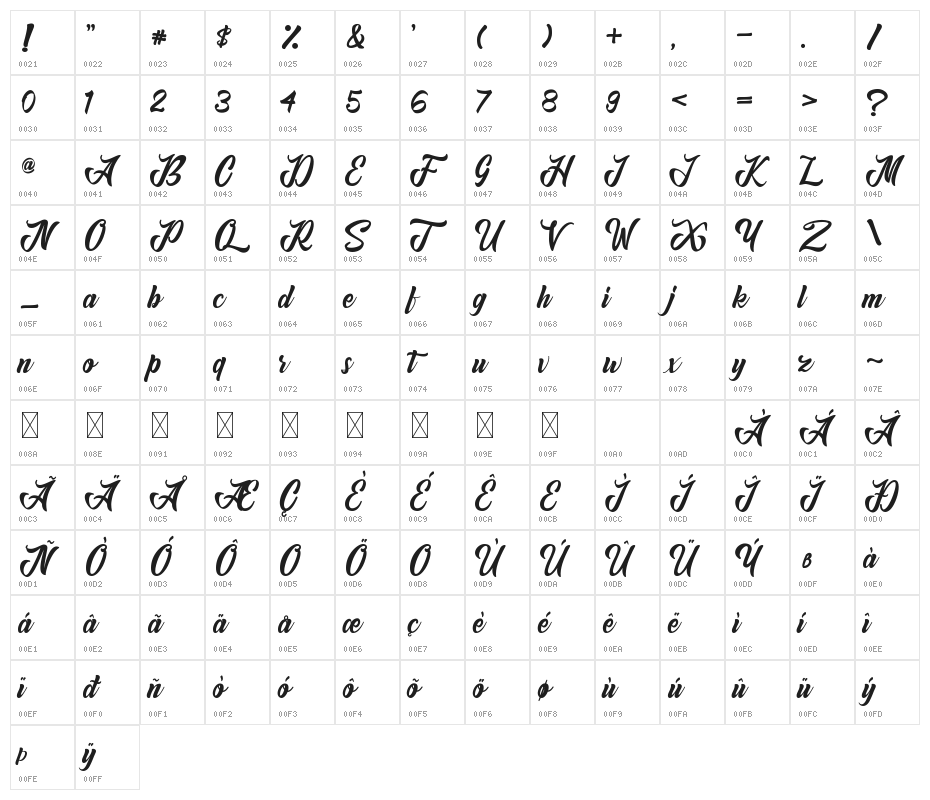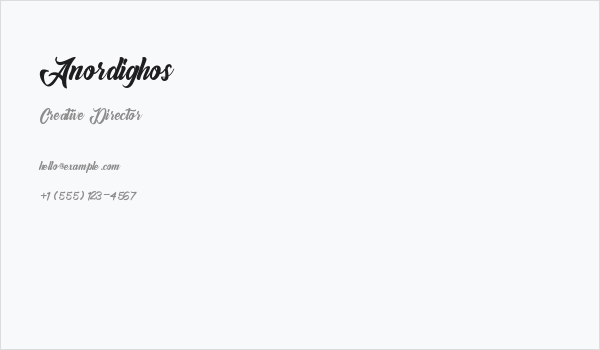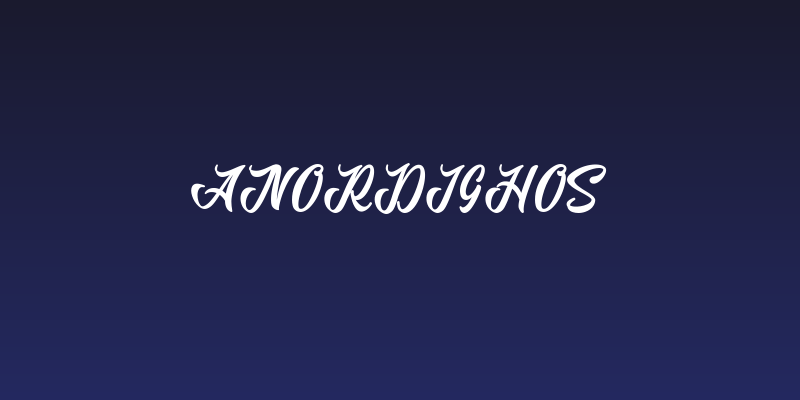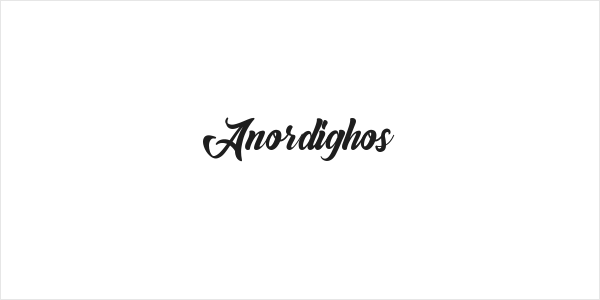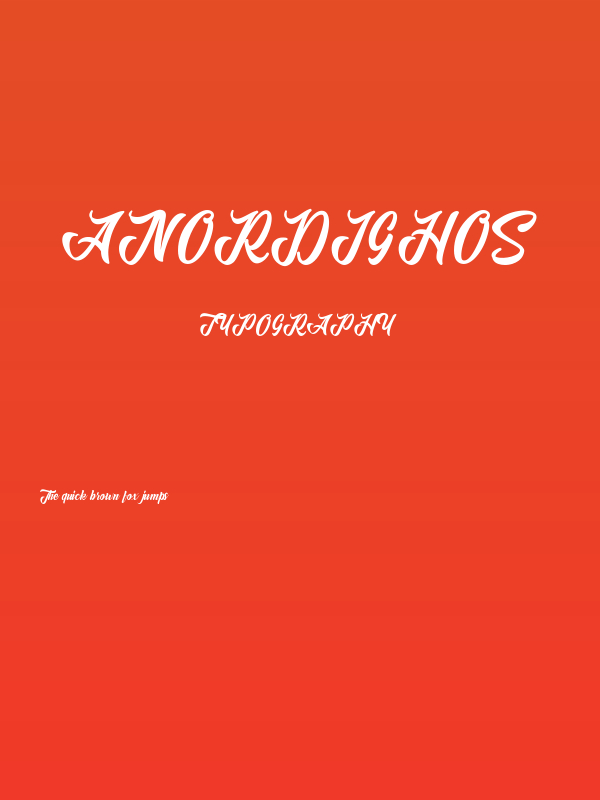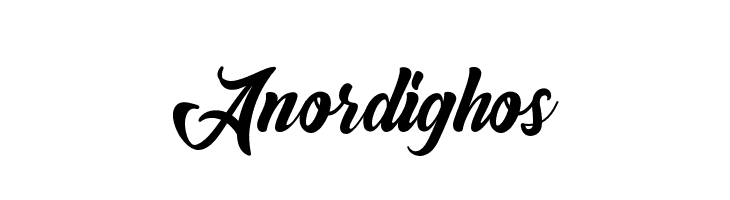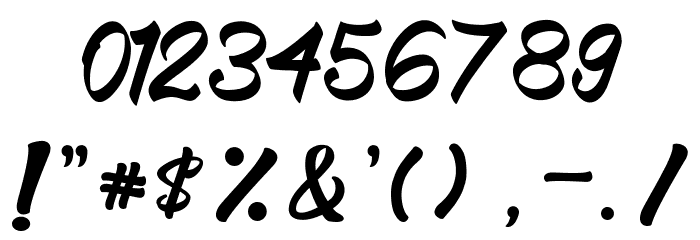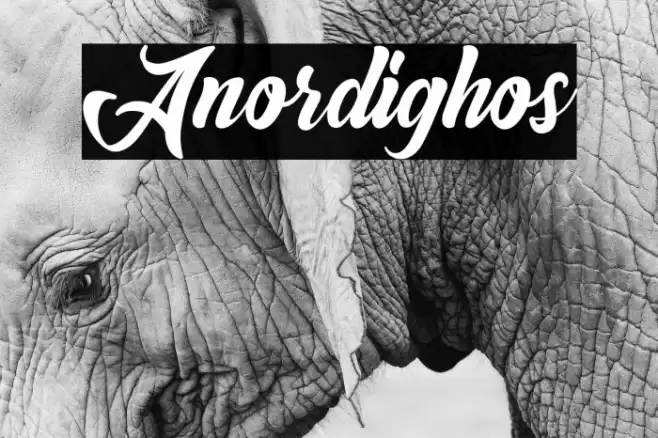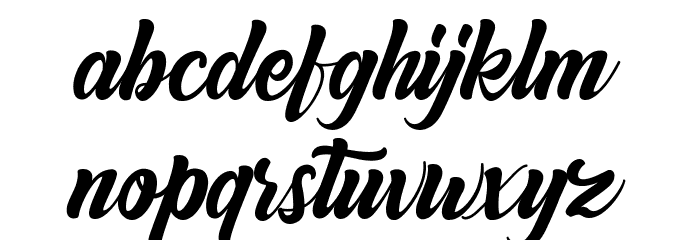
Anordighos Font
Anordighos Description
This font exhibits a bold, cursive style with a flowing, elegant script. The uppercase letters are characterized by sweeping curves and flourishes, giving them a sophisticated and dynamic appearance. The lowercase letters maintain a consistent flow, with smooth connections between characters, enhancing readability while retaining an artistic flair. The numerals are designed with a similar cursive style, ensuring uniformity across the typeface. Special characters are crafted to match the overall aesthetic, featuring the same bold strokes and elegant curves. This font is ideal for projects that require a touch of elegance and creativity.
| Overall Style | Elegant, Artistic |
| Use Case | Logos, Invitations, Decorative text |
| Proposed Projects | Ideal for wedding invitations, elegant branding, greeting cards, and artistic posters. |